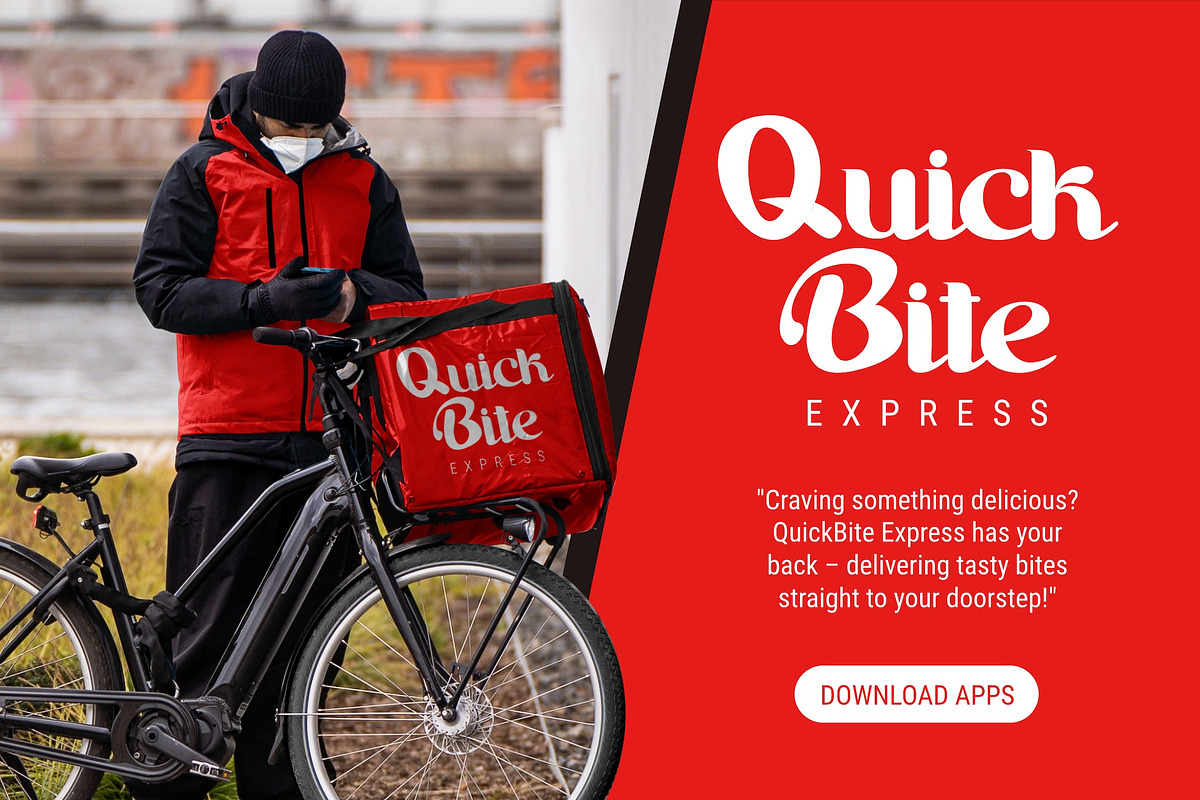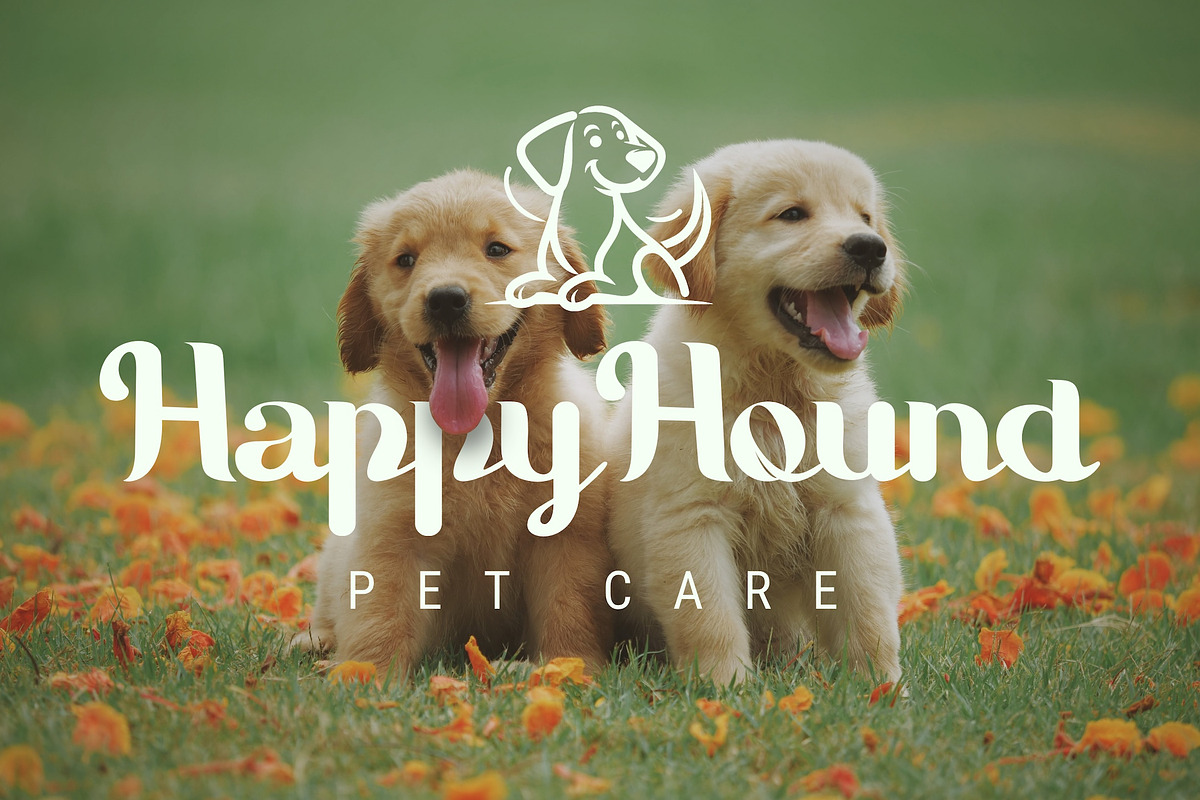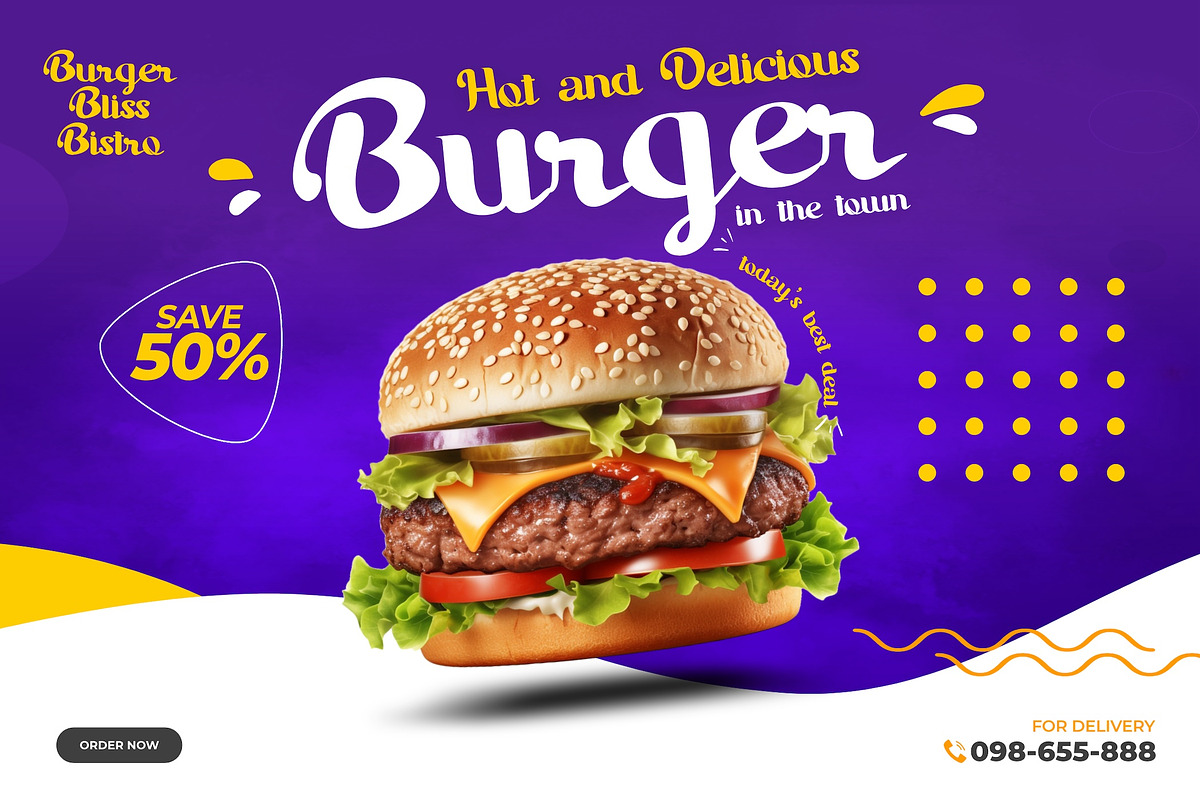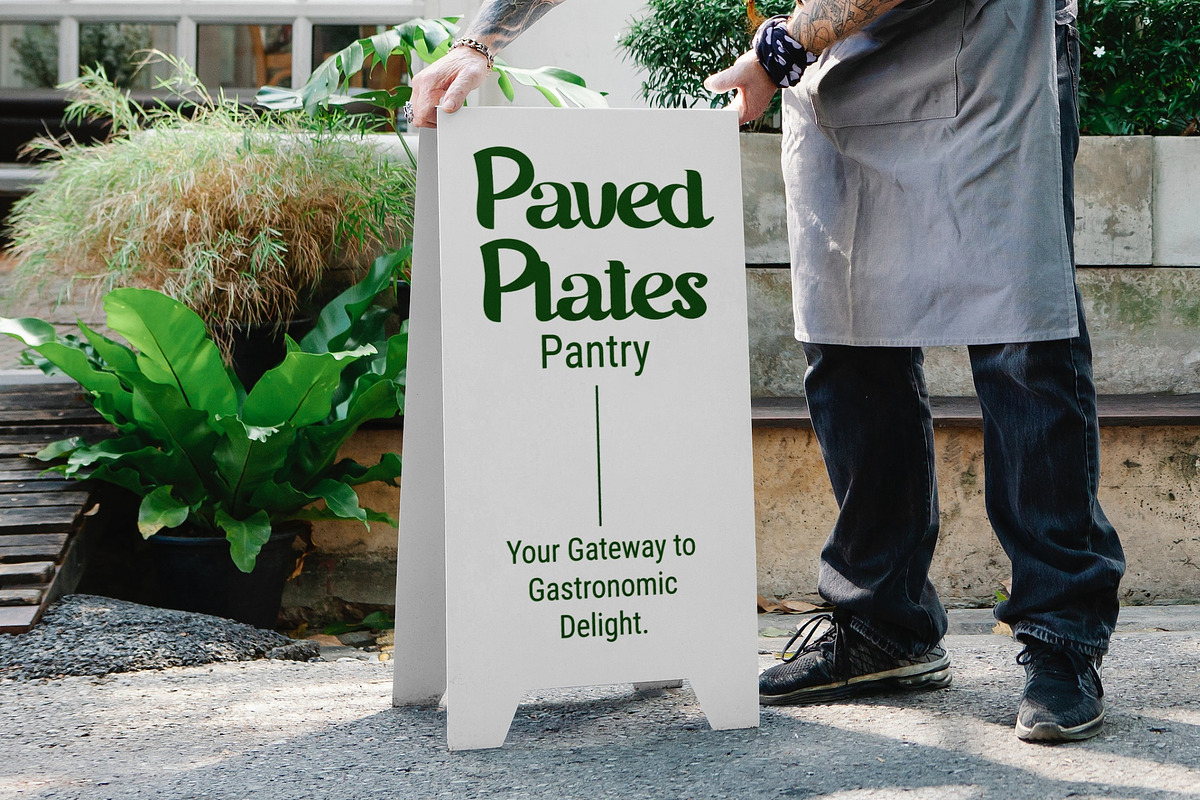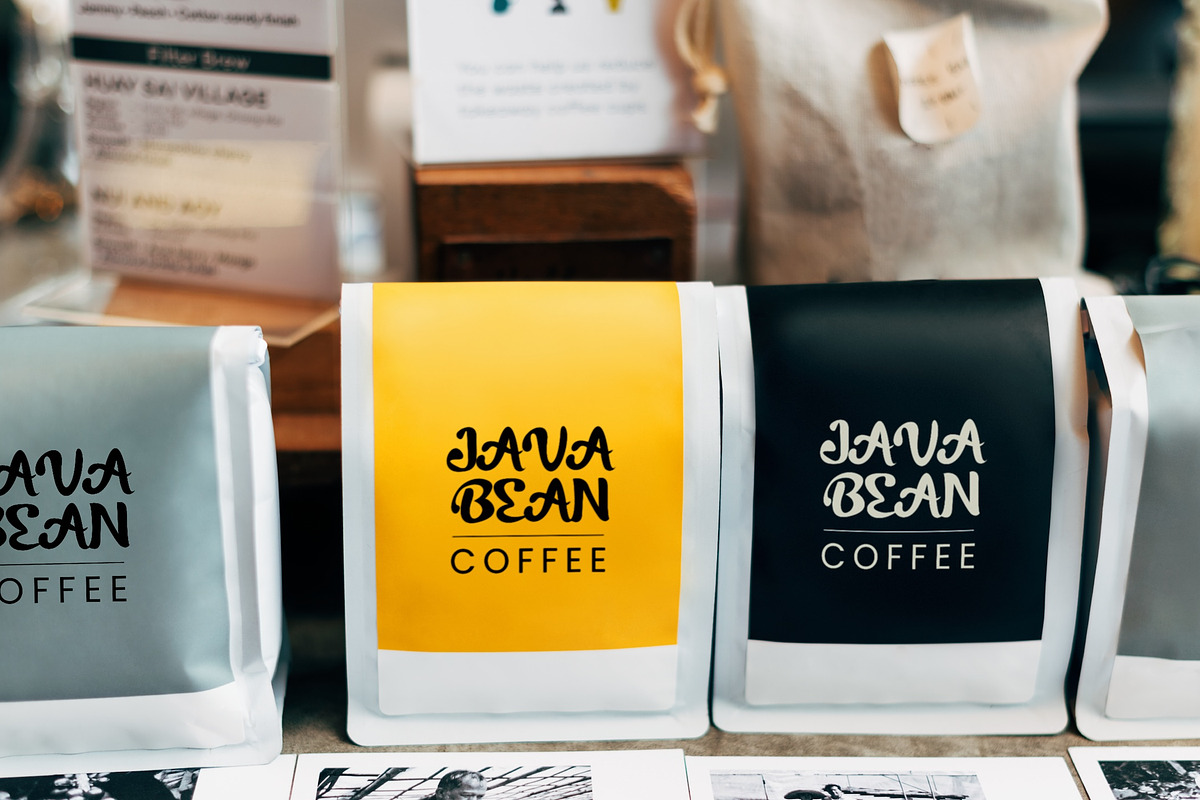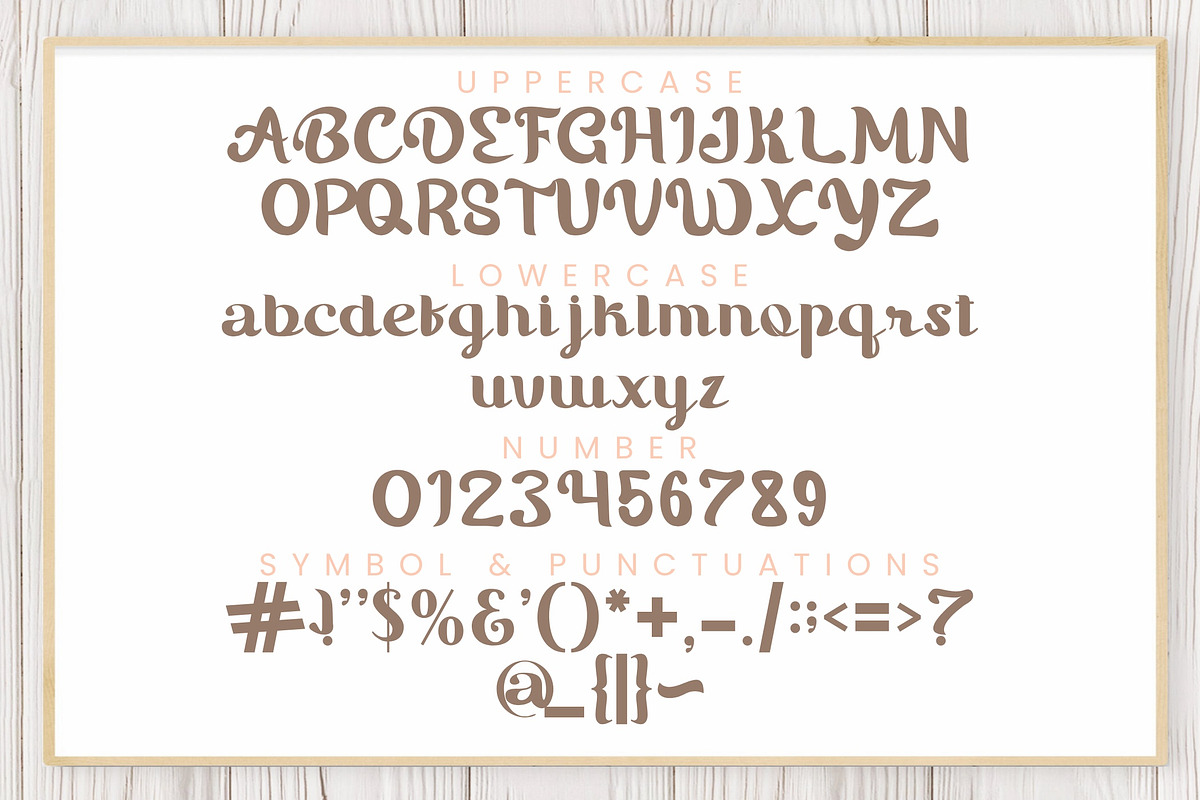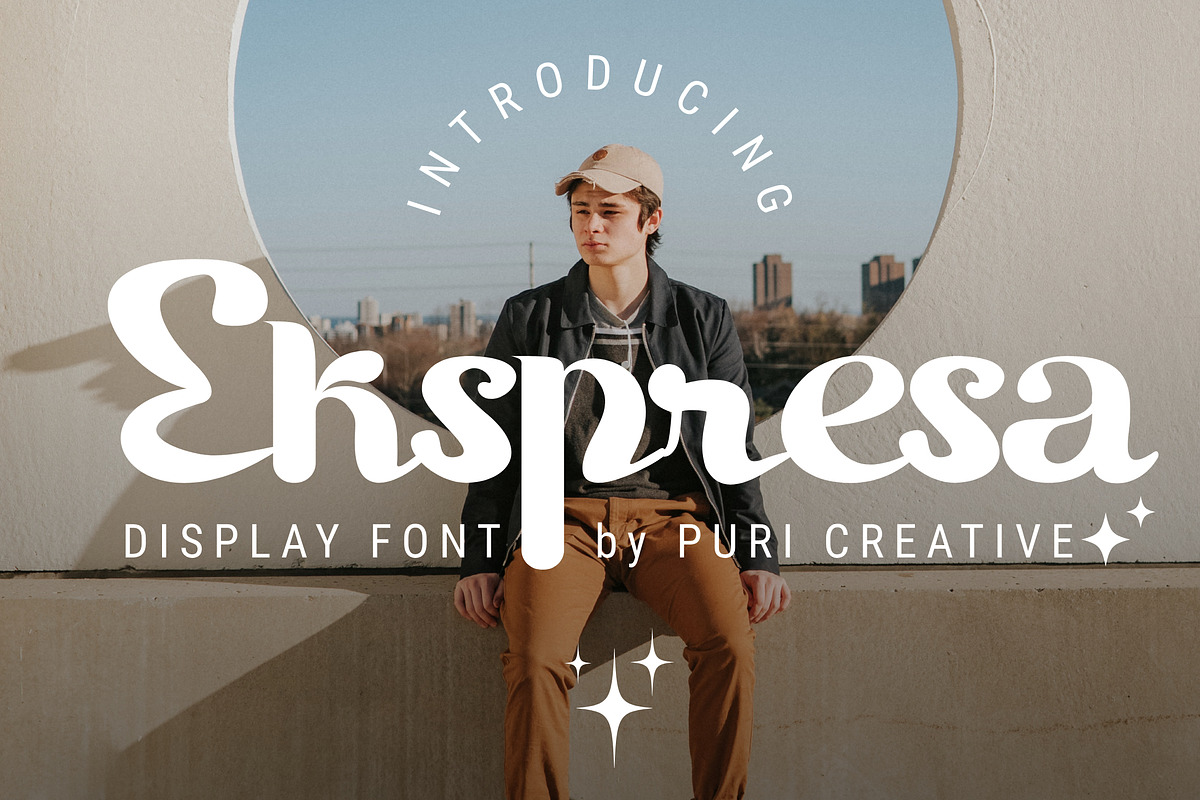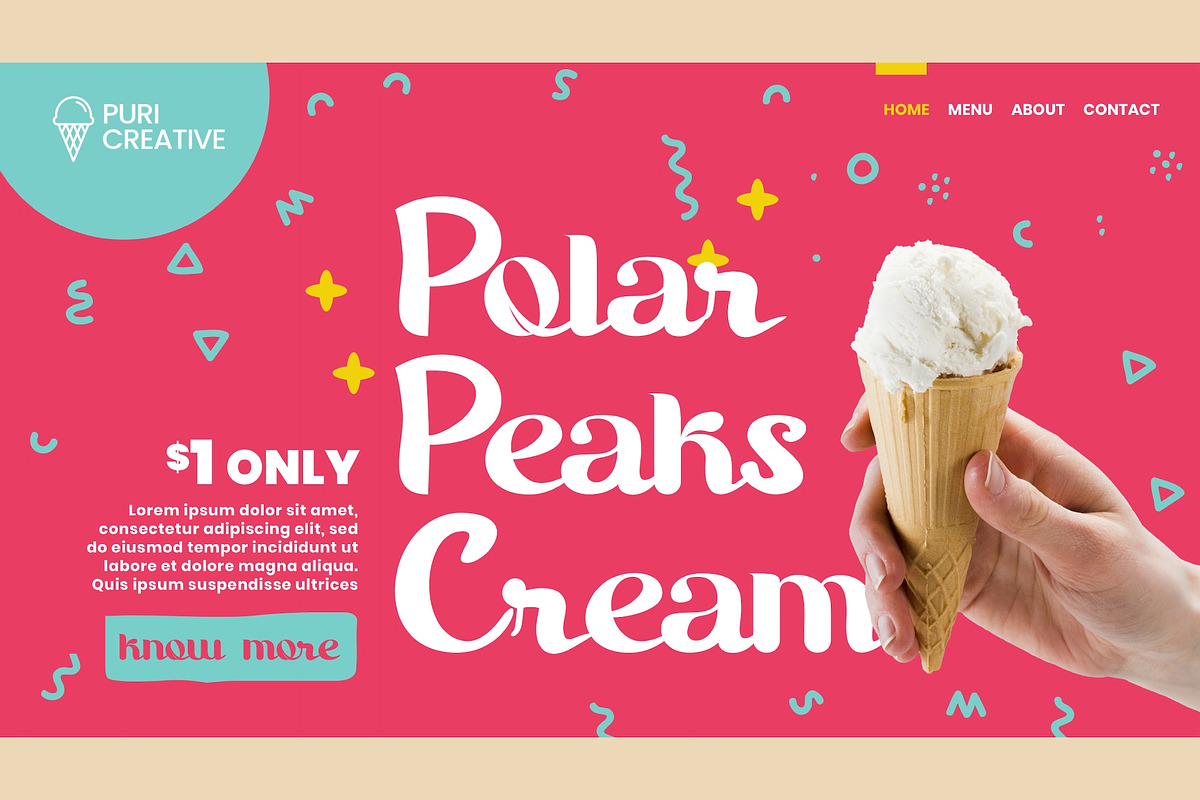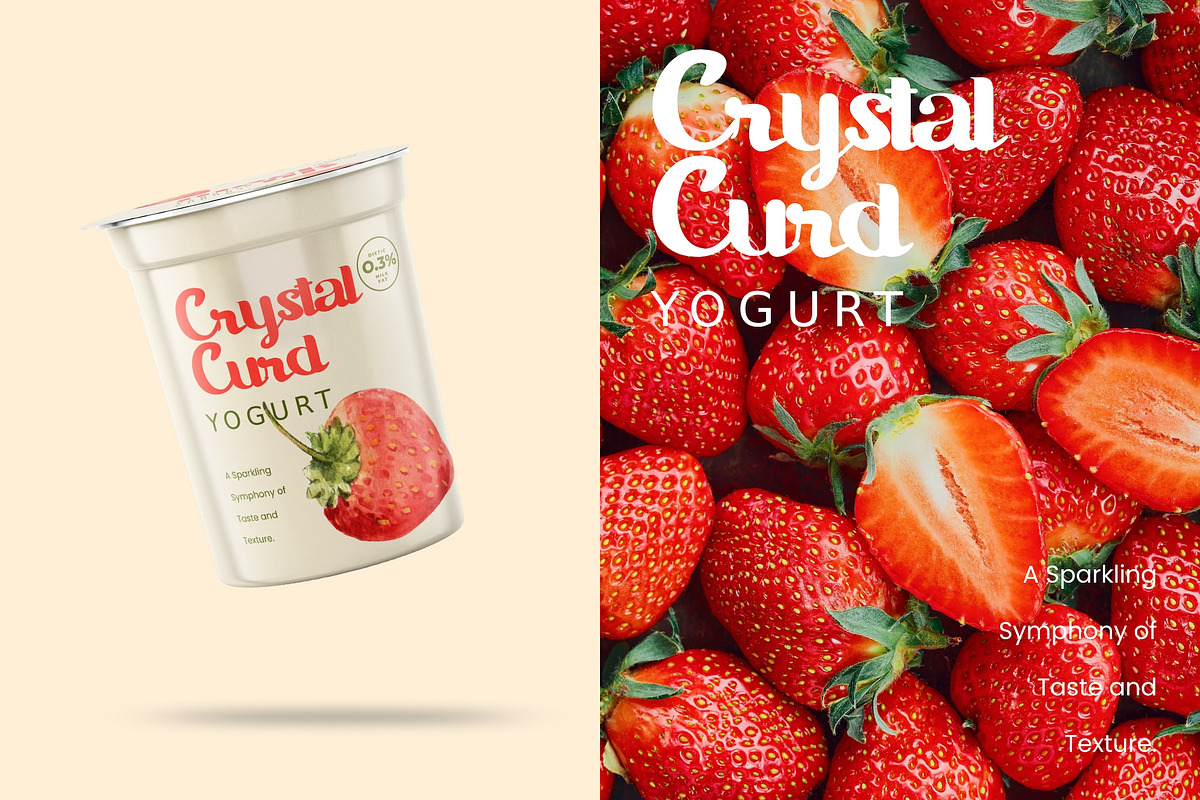
Ekspresa - Handwritten Display Font
"Ekspresa" is a display handwritten font specialized for brand, logo, company, business, mobile application, consumer product , commercial, advertisement and more. Featuring the perfect amount of trendiness, this font will make your designs come to life. This font is PUA encoded, which means you can access all of the glyphs with ease!
- Number and punctuation